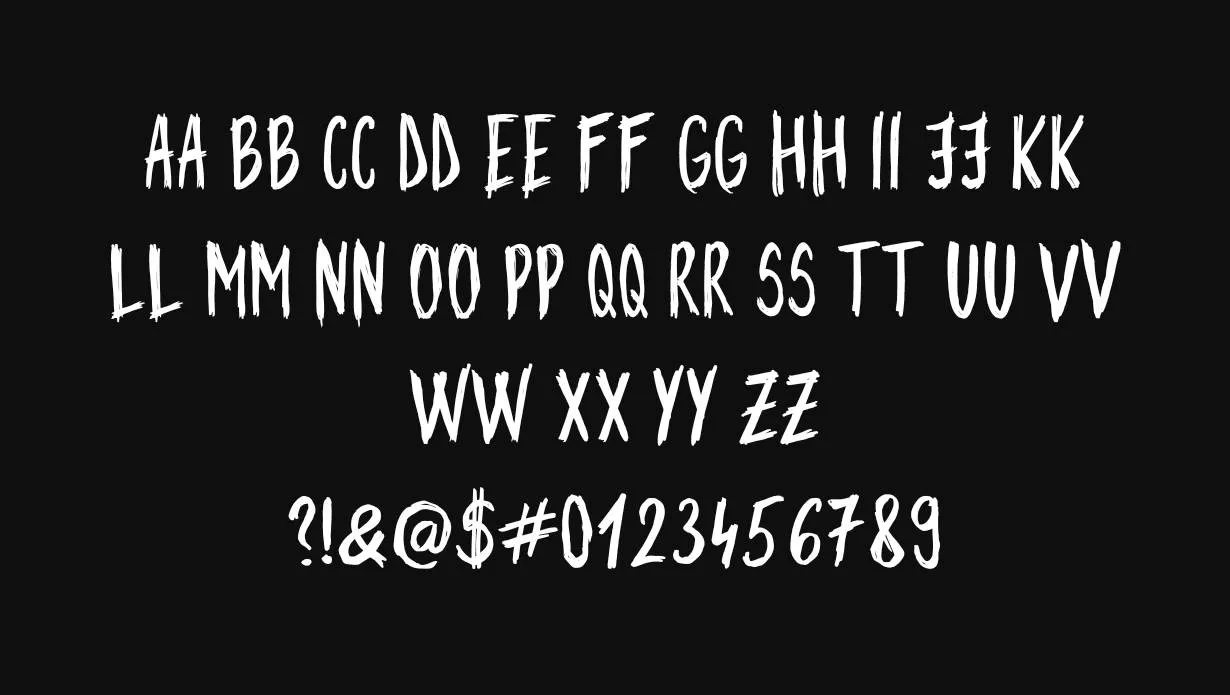
Deepo Handwriting Font is a casual and friendly script typeface that captures the natural flow of handwriting.
| Name | Deepo Handwriting Font |
| Designer | Gatis Vilaks |
It’s often used in personal blogs, product packaging, and branding materials, creating an informal and approachable atmosphere in design.